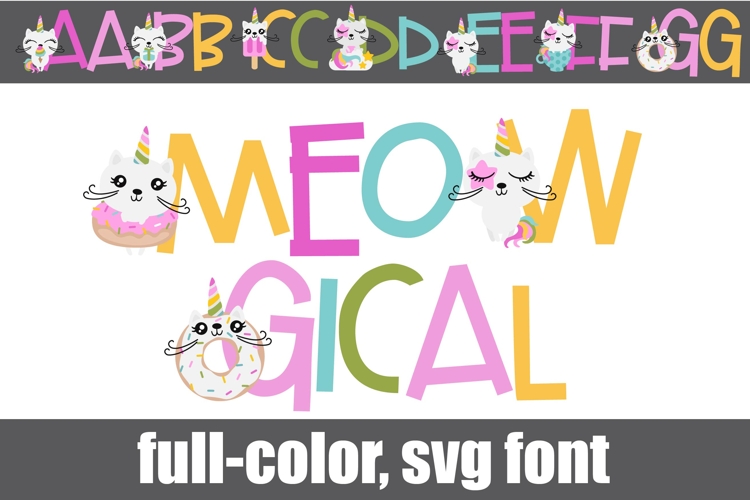
Meowgical Color Font
This full-color, whimsical font is a fun sans serif with magical cat-like creatures on the uppercase. There is an alt case with additional colors of all the letters you can access through your system's character maps.